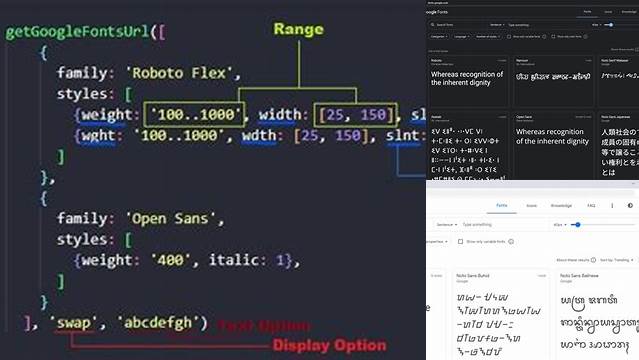
Decoding Google Fonts CSS2: Family Styles & Optimization
Hey guys! Ever wondered how those slick fonts on websites load so smoothly? A big part of it is thanks to Google Fonts and specifically, the https fonts.googleapis.com css2 family implementation. Let's dive deep into what this means, how it works, and how you can use it to make your website typography pop while keeping things speedy.
Understanding Google Fonts CSS2
The https fonts.googleapis.com css2 family is basically the modern way to pull in fonts from Google's massive library. It's a URL that tells your browser where to find the CSS stylesheet containing the font definitions. The "CSS2" part refers to the CSS Level 2 specification, which is a well-established standard for styling web pages. The real magic lies in the family parameter, which specifies the font or fonts you want to use. Using Google Fonts CSS2 ensures better performance and optimized loading compared to older methods.
What Makes CSS2 Better?
One of the key advantages of CSS2 is its ability to handle font variations more efficiently. Think about it: each font can have multiple weights (like regular, bold, italic) and styles. Older methods would require separate requests for each variation, slowing things down. CSS2 lets you bundle all the variations you need into a single request, which is a massive improvement for page load times. This optimization ensures a smoother user experience, especially on slower connections. Understanding the intricacies of Google Fonts CSS2 is crucial for any web developer looking to optimize their site's performance.
How the Family Parameter Works
The family parameter in the URL is where you specify which fonts you want to use. You can request a single font or a whole family of fonts, and even specify the weights and styles you need. This flexibility is one of the reasons why Google Fonts is so popular. Imagine trying to manage fonts without the ability to specify weights and styles – it would be a nightmare! By understanding the family parameter within the Google Fonts CSS2 context, you gain fine-grained control over your website's typography.
Exploring Font Families
Font families are groups of fonts that share a similar design. This can include different weights, styles, and even localized versions of the same typeface. When you use a font family, you're not just loading one font; you're loading a whole set of variations. This is where https fonts.googleapis.com css2 family really shines. Using font families effectively can drastically improve the visual appeal and consistency of your website. Think of fonts as the clothing for your content – choosing the right family is like picking the perfect outfit.
The Importance of Font Consistency
Consistency is key in design, and fonts are no exception. Using a font family helps you maintain a consistent look and feel across your website. This makes your site look more professional and easier to read. Inconsistent fonts can be jarring and make your site look amateurish. Therefore, focusing on font consistency is a foundational aspect of good web design. Imagine a book that changes font every chapter – it would be a confusing read!
Mixing and Matching Font Families
While consistency is important, sometimes you need to mix things up. Using different font families for headings and body text can create visual interest and hierarchy. However, it's important to do this carefully. Choose fonts that complement each other and avoid using too many different families. Knowing how to mix and match font families is an art form. When done well, it can elevate your design; when done poorly, it can create a chaotic mess.
Font Weights and Styles
Font weight refers to the thickness of the font, such as regular, bold, or extra-bold. Font style refers to variations like italic or oblique. Using different weights and styles can help you emphasize important text and create visual hierarchy. The https fonts.googleapis.com css2 family implementation allows you to specify the exact weights and styles you need, ensuring your website loads only the necessary font files. Utilizing font weights and styles effectively is like adding punctuation to your text – it adds emphasis and clarity.
When to Use Bold Text
Bold text is great for headings, subheadings, and key phrases that you want to stand out. However, avoid overusing it, as too much bold text can make your page look cluttered. Use bold text strategically to draw the reader's eye to the most important information. Think of bold text as a spotlight – use it to highlight what truly matters.
The Role of Italic Text
Italic text is often used for emphasis, quotes, or foreign words. Like bold text, it should be used sparingly. Overusing italics can make your text difficult to read. Instead, italic text should be employed to add a subtle touch of elegance or to distinguish specific elements within your content.
Optimizing Google Fonts Loading
Loading fonts can sometimes slow down your website, especially if you're using a lot of different weights and styles. Optimizing your font loading is crucial for ensuring a fast and smooth user experience. The https fonts.googleapis.com css2 family system offers several ways to optimize font loading, including preloading and font-display strategies. Optimizing Google Fonts loading is a technical yet crucial step in web performance optimization. Every millisecond counts when it comes to keeping visitors engaged.
Preloading Fonts
Preloading fonts tells the browser to download the font files as soon as possible. This can help prevent the "flash of unstyled text" (FOUT), where the text appears in a default font before the custom font loads. Preloading is like giving your fonts a head start – they're ready to go when the browser needs them. Preloading fonts can significantly reduce perceived loading time, making your site feel faster.
Font-Display Strategies
The font-display property lets you control how the browser renders text while the font is loading. Options include swap, fallback, optional, and block. Choosing the right font-display strategy can help minimize FOUT and ensure a better user experience. Font-display strategies are your tools for managing the trade-off between visual consistency and perceived performance. It's all about choosing the right strategy for your specific needs.
Working with Google Fonts API
The Google Fonts API is the engine that powers https fonts.googleapis.com css2 family. It provides a simple and efficient way to access Google's font library. Understanding how the API works can help you troubleshoot issues and optimize your font loading. The Google Fonts API is the backbone of the system, and understanding its mechanics can unlock advanced optimization techniques.
Understanding API Parameters
The API uses several parameters to specify which fonts to load, including family, weights, and display. By understanding these parameters, you can fine-tune your font requests and ensure you're only loading the necessary files. API parameters are the keys to unlocking the full potential of the Google Fonts API. Mastering them gives you precise control over your font loading process.
Troubleshooting API Errors
Sometimes, things can go wrong. If you're not seeing your fonts load correctly, there might be an issue with the API request. Common errors include incorrect font names or invalid parameters. Knowing how to troubleshoot API errors is a crucial skill for any web developer. Debugging font loading issues can be tricky, but with the right knowledge, you can quickly resolve them.
Advanced Font Loading Techniques
Beyond the basics, there are several advanced techniques you can use to further optimize font loading. These include using font subsets, variable fonts, and self-hosting fonts. Advanced font loading techniques are where the real optimization magic happens. If you're serious about web performance, exploring these techniques is a must.
Font Subsetting
Font subsetting involves removing unused characters from the font file. This can significantly reduce the file size, especially for fonts with a large character set. Font subsetting is like trimming the fat from your font files – you keep only what you need.
Variable Fonts
Variable fonts are a new font format that allows for more flexibility and smaller file sizes. Instead of having separate files for each weight and style, a variable font contains all the variations in a single file. This is a game-changer for web performance. Variable fonts are the future of web typography, offering both flexibility and efficiency.
Self-Hosting Fonts
While using Google Fonts is convenient, self-hosting your fonts gives you more control over the loading process. You can host the font files on your own server and optimize them for your specific needs. Self-hosting fonts puts you in the driver's seat, giving you full control over your font delivery.
The Future of Web Typography
Web typography is constantly evolving, with new technologies and techniques emerging all the time. Staying up-to-date with the latest trends is crucial for creating beautiful and performant websites. The future of web typography is bright, with exciting new technologies and techniques on the horizon.
Trends in Font Design
Font design is an art form, and trends come and go. From minimalist sans-serifs to bold serifs, the styles that are popular change over time. Keeping an eye on trends in font design can help you keep your website looking fresh and modern.
The Impact of New Technologies
New technologies like variable fonts and font-display are changing the way we use fonts on the web. These technologies offer new possibilities for optimization and creativity. The impact of new technologies on web typography is significant, opening up new avenues for both performance and design.
H2: Understanding CSS2 in Detail
CSS2, the second level of the Cascading Style Sheets specification, plays a vital role in how Google Fonts are delivered and rendered on web pages. It's not just about the fonts themselves; it's about the entire system that brings them to life. When you delve into the details of CSS2, you uncover the underlying mechanisms that make Google Fonts so effective and efficient.
The Core Concepts of CSS2
CSS2 introduces several core concepts that are essential for understanding how fonts are handled. These include selectors, properties, and values. Selectors target specific elements on your page, properties define the styles you want to apply, and values specify the actual styles. Understanding these core concepts of CSS2 is like learning the grammar of web styling – it's the foundation upon which everything else is built.
CSS2 and Font Rendering
CSS2 defines how fonts are rendered on the screen, including aspects like font size, line height, and text alignment. It also provides mechanisms for handling font fallback, which is crucial for ensuring that your text is always readable, even if the specified font fails to load. The nuances of CSS2 and font rendering can significantly impact the visual appeal of your website. It's the art of making your text look its best on any device.
How CSS2 Interacts with Google Fonts
When you use Google Fonts via https fonts.googleapis.com css2 family, CSS2 is the language that your browser uses to interpret the font definitions. The CSS file downloaded from Google Fonts contains the rules that tell your browser how to display the font, including the font family, weights, and styles. The seamless way CSS2 interacts with Google Fonts is a testament to the power of web standards and collaborative development.
H2: Decoding the Family Parameter
The family parameter in the Google Fonts URL is where the magic truly happens. It's the key to specifying which fonts you want to use, and how you want to use them. Understanding the intricacies of this parameter is essential for leveraging the full power of Google Fonts. Decoding the family parameter is like learning the secret handshake to the Google Fonts club. It opens the door to a world of typographic possibilities.
Specifying Font Names
The most basic function of the family parameter is to specify the name of the font you want to use. You can request a single font, or multiple fonts, by listing their names separated by the pipe symbol (|). This simple syntax is the foundation of specifying font names and is the first step in crafting your font requests.
Defining Weights and Styles
Beyond just the font name, the family parameter also allows you to specify the weights and styles you need. For example, you can request bold, italic, or regular versions of a font. This fine-grained control is crucial for optimizing your font loading and ensuring that you only download the files you need. Precisely defining weights and styles is the key to efficient font loading and visual consistency.
Examples of Family Parameter Usage
Let's look at some examples of how you might use the family parameter. To request Roboto and Open Sans, you would use family=Roboto|Open+Sans. To request Roboto in regular and bold weights, you would use family=Roboto:400,700. These examples illustrate the flexibility and power of the family parameter usage in real-world scenarios.
H2: Font Family Best Practices
Choosing and using font families effectively is an art form. It's about more than just picking fonts that look good; it's about creating a cohesive and readable experience for your users. Following font family best practices is the key to achieving typographic harmony on your website.
Choosing Complementary Fonts
When using multiple font families, it's crucial to choose fonts that complement each other. A common approach is to pair a serif font for headings with a sans-serif font for body text. This creates visual contrast while maintaining readability. Selecting complementary fonts is like pairing the perfect wine with a delicious meal – it elevates the entire experience.
Limiting the Number of Font Families
It's tempting to use lots of different fonts, but this can quickly make your website look cluttered and unprofessional. As a general rule, it's best to limit yourself to two or three font families. Limiting the number of font families helps maintain visual consistency and prevents typographic overload.
Testing Font Readability
Before launching your website, it's crucial to test the readability of your chosen fonts. Ensure that the text is legible on different devices and screen sizes. Pay attention to font size, line height, and contrast. Thoroughly testing font readability is a critical step in ensuring a positive user experience.
H2: Font Weight and Style Considerations
Font weight and style are powerful tools for adding emphasis and creating visual hierarchy. However, they should be used judiciously. Overusing bold or italic text can make your website look cluttered and difficult to read. Careful font weight and style considerations are essential for effective communication and visual clarity.
Using Bold Text for Emphasis
Bold text is a great way to highlight key phrases and headings. It draws the reader's eye and helps them quickly scan the page. However, avoid using too much bold text, as it can lose its impact. The strategic use of bold text for emphasis can significantly improve the readability and impact of your content.
Employing Italics for Subtlety
Italic text is often used for quotes, foreign words, or subtle emphasis. It's less forceful than bold text, making it ideal for situations where you want to add a touch of nuance. Wisely employing italics for subtlety can add a layer of sophistication to your typography.
Balancing Weights and Styles
The key to effective typography is balance. Don't overuse any one weight or style. Mix and match them to create visual interest and guide the reader through your content. Achieving balancing weights and styles is an art form that requires careful consideration and a keen eye for detail.
H2: Optimizing Font Loading for Speed
Website speed is crucial for user experience and SEO. Slow-loading fonts can significantly impact your page load time. Optimizing your font loading is therefore essential for ensuring a fast and smooth experience for your users. Optimizing font loading for speed is a critical aspect of web performance optimization.
Preloading Essential Fonts
Preloading fonts tells the browser to download the font files as early as possible. This can significantly reduce the time it takes for the font to render, minimizing FOUT. Preloading essential fonts is a simple yet effective way to improve perceived loading time.
Utilizing Font-Display Property
The font-display property lets you control how the browser renders text while the font is loading. This allows you to choose a strategy that minimizes FOUT and ensures a better user experience. Skillfully utilizing font-display property options like swap, fallback, and optional can have a major impact on perceived performance.
Minimizing Font File Sizes
Smaller font files load faster. Techniques like font subsetting and variable fonts can help you minimize your font file sizes. Minimizing font file sizes is a fundamental principle of font loading optimization.
H2: Diving into Google Fonts API Parameters
The Google Fonts API uses several parameters to control which fonts are loaded and how they are rendered. Understanding these parameters gives you fine-grained control over your font loading. Diving into Google Fonts API parameters is like learning the controls of a sophisticated machine – it allows you to precisely tune the performance of your typography.
The Family Parameter in Detail
We've already touched on the family parameter, but it's worth exploring in more detail. It's the primary parameter for specifying which fonts you want to use, and it supports a wide range of options for specifying weights, styles, and character sets. Understanding the family parameter in detail is crucial for crafting precise and efficient font requests.
The Subsets Parameter
The subsets parameter lets you specify which character sets you need for your fonts. This is useful for reducing font file sizes if you only need a subset of characters, such as Latin or Cyrillic. Smartly employing the subsets parameter can significantly reduce font file sizes, especially for fonts with large character sets.
The Display Parameter
The display parameter, as discussed earlier, controls how the browser renders text while the font is loading. Understanding the options available with the display parameter and choosing the right strategy can help minimize FOUT and improve user experience.
H2: Common Google Fonts API Errors
Like any API, the Google Fonts API can sometimes return errors. Understanding these errors and how to troubleshoot them is essential for ensuring that your fonts load correctly. Being aware of common Google Fonts API errors and their solutions can save you time and frustration.
400 Bad Request Error
A 400 Bad Request error typically indicates an issue with your API request, such as an invalid font name or an incorrect parameter. 400 Bad Request Error can often be resolved by carefully reviewing your request URL and ensuring that all parameters are correctly formatted.
403 Forbidden Error
A 403 Forbidden error usually means that you don't have permission to access the API. This is rare with the Google Fonts API, but it can occur if there are issues with your network or server configuration. Addressing 403 Forbidden Error might involve checking your network settings or contacting your hosting provider.
500 Internal Server Error
A 500 Internal Server Error indicates a problem on the Google Fonts API server. This is usually a temporary issue, and you can try again later. While 500 Internal Server Error is often out of your control, it's important to recognize it as a server-side issue.
H2: Leveraging Advanced Font Loading Techniques
For those who are serious about web performance, advanced font loading techniques can offer significant improvements in page load time and user experience. Leveraging advanced font loading techniques is like graduating to the advanced class of web performance optimization.
Implementing Font Subsetting
Font subsetting involves creating a custom font file that only contains the characters you actually use on your website. This can significantly reduce the file size, especially for fonts with a large character set. Effectively implementing font subsetting can be a powerful way to trim the fat from your font files.
Adopting Variable Fonts
Variable fonts are a new font format that allows for more flexibility and smaller file sizes. Instead of having separate files for each weight and style, a variable font contains all the variations in a single file. Embracing adopting variable fonts is like stepping into the future of web typography.
Exploring Self-Hosting Options
Self-hosting fonts gives you more control over the loading process. You can host the font files on your own server and optimize them for your specific needs, such as using a content delivery network (CDN). Carefully exploring self-hosting options can be a rewarding endeavor for those seeking ultimate control over font delivery.
H3: Real-World Examples of CSS2 Implementation
Seeing how https fonts.googleapis.com css2 family is used in real-world websites can give you a better understanding of its practical applications. Analyzing real-world examples of CSS2 implementation can provide valuable insights and inspiration for your own projects.
Examining Popular Websites
Many popular websites use Google Fonts and CSS2 to deliver their typography. By inspecting their code, you can see how they implement font loading and optimization techniques. Examining popular websites is like learning from the masters – you can glean best practices and innovative approaches.
Case Studies of Performance Improvement
There are many case studies that demonstrate the performance benefits of using Google Fonts and CSS2. These studies show how optimizing font loading can lead to significant improvements in page load time and user experience. Studying case studies of performance improvement can provide data-driven evidence of the impact of font optimization.
Common Use Cases and Scenarios
From blogs to e-commerce sites, Google Fonts and CSS2 are used in a wide variety of contexts. Understanding common use cases and scenarios can help you apply these technologies effectively in your own projects.
H3: Understanding Font File Formats (WOFF, WOFF2)
Font files come in various formats, each with its own strengths and weaknesses. Understanding the most common formats, WOFF and WOFF2, is essential for optimizing your font loading. Understanding font file formats (WOFF, WOFF2) is like learning the language of fonts – it gives you a deeper appreciation for the technology behind them.
WOFF: The Original Web Font Format
WOFF (Web Open Font Format) was one of the first font formats designed specifically for the web. It offers good compression and is widely supported by modern browsers. Learning about WOFF: The Original Web Font Format provides a historical perspective on web typography.
WOFF2: The Modern Standard
WOFF2 is the successor to WOFF and offers significantly better compression, resulting in smaller font file sizes and faster loading times. It's the recommended format for modern websites. Knowing WOFF2: The Modern Standard is crucial for ensuring optimal font loading performance.
Converting Between Formats
There are tools available to convert fonts between different formats, such as WOFF and WOFF2. This can be useful for ensuring compatibility with older browsers. The ability to converting between formats offers flexibility in supporting a wide range of browsers.
H3: The Impact of Font Choice on Branding
Your font choice can have a significant impact on your brand identity. Different fonts evoke different emotions and associations. Choosing the right fonts is therefore crucial for conveying the desired message and personality. Considering the impact of font choice on branding is an essential part of creating a strong visual identity.
Font Psychology and Brand Perception
Fonts can evoke different emotions and perceptions. Serif fonts often convey a sense of tradition and authority, while sans-serif fonts tend to feel modern and clean. Understanding font psychology and brand perception allows you to make informed choices that align with your brand values.
Selecting Fonts that Reflect Your Brand
When choosing fonts, consider your brand's personality and target audience. Choose fonts that reflect your brand values and resonate with your audience. Thoughtfully selecting fonts that reflect your brand is a key step in building a cohesive brand identity.
Maintaining Brand Consistency Through Typography
Using the same fonts across your website and marketing materials helps maintain brand consistency. This creates a unified and professional look and feel. The importance of maintaining brand consistency through typography cannot be overstated – it's a cornerstone of brand recognition.
H3: Mobile Font Optimization
Mobile devices have smaller screens and often slower network connections than desktop computers. Optimizing your fonts for mobile is therefore crucial for ensuring a good user experience on mobile devices. Focusing on mobile font optimization is essential for reaching the growing number of mobile users.
Responsive Font Sizes
Using responsive font sizes ensures that your text is legible on different screen sizes. This involves using relative units like em or rem, rather than fixed units like pixels. Employing responsive font sizes is a fundamental principle of responsive web design.
Optimizing Font Loading on Mobile Networks
Mobile networks can be slower and less reliable than desktop networks. Optimizing your font loading for mobile networks is therefore essential. This includes techniques like font subsetting and preloading. Prioritizing optimizing font loading on mobile networks can significantly improve the mobile user experience.
Testing Font Readability on Mobile Devices
Always test your fonts on real mobile devices to ensure that they are legible and render correctly. Pay attention to font size, line height, and contrast. Thoroughly testing font readability on mobile devices is a critical step in ensuring a mobile-friendly website.
H3: Accessibility Considerations for Web Fonts
Accessibility is a crucial aspect of web design. Choosing fonts that are easy to read for people with visual impairments is essential for creating an inclusive website. Accessibility considerations for web fonts should be at the forefront of your font selection process.
Choosing High-Contrast Fonts
High-contrast fonts are easier to read for people with low vision. Ensure that there is sufficient contrast between the text color and the background color. Intentionally choosing high-contrast fonts is a simple yet powerful way to improve accessibility.
Using Legible Font Sizes
Ensure that your font sizes are large enough to be easily read by people with visual impairments. Avoid using very small font sizes. The deliberate use of legible font sizes is a cornerstone of accessible typography.
Providing Font Scaling Options
Allow users to adjust the font size on your website. This can be done using CSS or browser settings. Providing font scaling options empowers users to customize their reading experience.
H3: The Role of CDNs in Font Delivery
Content Delivery Networks (CDNs) can significantly improve font loading performance by caching font files on servers around the world. Using a CDN ensures that your fonts are delivered quickly to users, regardless of their location. Understanding the role of CDNs in font delivery is crucial for building performant websites.
How CDNs Speed Up Font Loading
CDNs work by caching files on servers located around the world. When a user requests a file, the CDN delivers it from the server that is closest to them. This reduces latency and improves loading times. This elegant mechanism is how CDNs speed up font loading, ensuring a faster experience for users globally.
Google Fonts CDN Infrastructure
Google Fonts uses its own CDN infrastructure to deliver fonts. This ensures that fonts are delivered quickly and reliably to users around the world. The robust Google Fonts CDN infrastructure is a key reason why Google Fonts are so performant.
Self-Hosting Fonts with a CDN
If you choose to self-host your fonts, you can also use a CDN to deliver them. This gives you more control over the loading process while still benefiting from the performance advantages of a CDN. Thoughtfully self-hosting fonts with a CDN can provide the best of both worlds – control and performance.
H3: Future Trends in Web Typography
Web typography is constantly evolving, with new technologies and techniques emerging all the time. Staying up-to-date with the latest trends is crucial for creating modern and performant websites. Keeping an eye on future trends in web typography is like peering into a crystal ball, allowing you to prepare for what's next.
Variable Fonts: The Next Generation
Variable fonts are a game-changer for web typography, offering both flexibility and efficiency. Expect to see variable fonts become increasingly popular in the years to come. There is a wide consensus that Variable Fonts: The Next Generation of typography technologies are set to revolutionize web design.
AI-Powered Font Selection Tools
Artificial intelligence (AI) is being used to develop tools that can help you choose the perfect fonts for your website. These tools can analyze your brand and target audience and suggest fonts that are a good fit. We can expect AI-Powered Font Selection Tools to play a significant role in the future of typography.
Immersive Typography in Virtual Reality
As virtual reality (VR) becomes more mainstream, we can expect to see new approaches to typography in immersive environments. Typography in VR will need to be carefully designed to ensure readability and comfort. The landscape of Immersive Typography in Virtual Reality is still in its infancy, but the potential is enormous.
By understanding https fonts.googleapis.com css2 family and its nuances, you can significantly improve your website's typography and performance. So go forth, experiment with fonts, and create beautiful and engaging web experiences!